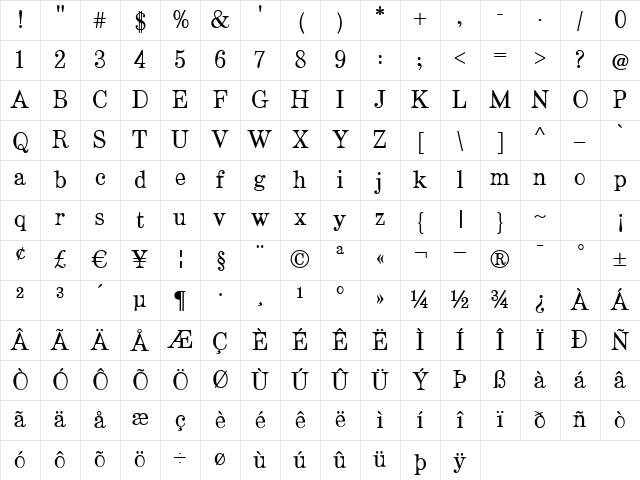
Artefact Bold Free Font
Artefact Bold
Design Context for Artefact
Artefact is a composed and adaptable typeface that performs quietly and consistently across a wide range of design contexts. Its bold stroke weight gives it real presence on the page.